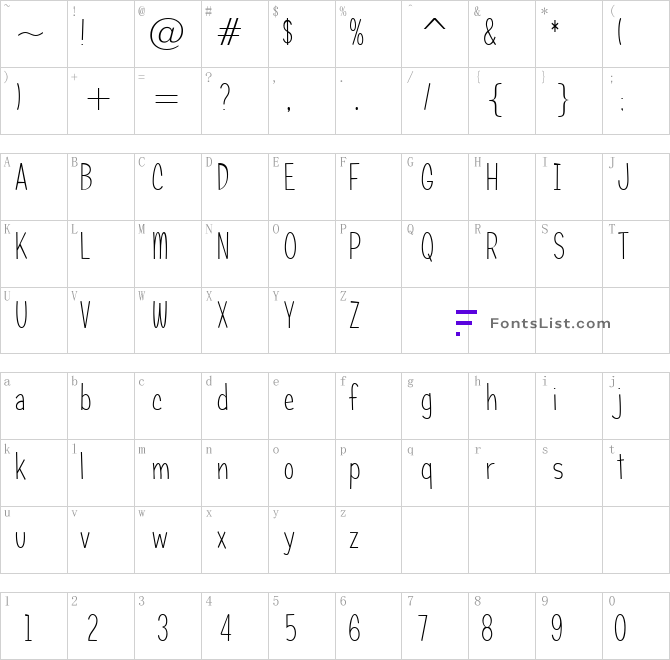
- Font Name:Candy Square BTN Cond Lt
Candy-Square-BTN-Cond-Lt.ttf is a very beautiful artistic font, Candy-Square-BTN-Cond-Lt.ttf is widely used in the design and printing of various books and pictures,Candy-Square-BTN-Cond-Lt.ttf has a strong visual impact,Candy-Square-BTN-Cond-Lt.ttf is a commonly used font in newspapers, magazines and books, and is used in posters, e-commerce Poster design, store design, logo design, font design and other fields.Candy-Square-BTN-Cond-Lt.